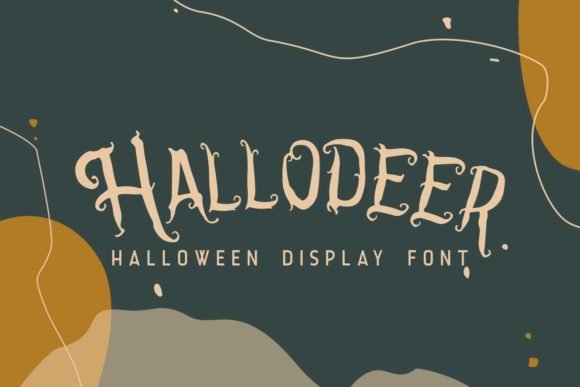
Introduction to Hallodeer Font
Hallodeer is a cute and quirky display font.
Add it to your most creative Halloween themed ideas and notice how it makes them stand out .
Hallodeer Font offers exceptional quality and versatility, making it a valuable addition to your design toolkit. Whether you’re creating for personal projects or commercial use, Hallodeer Font delivers professional results.